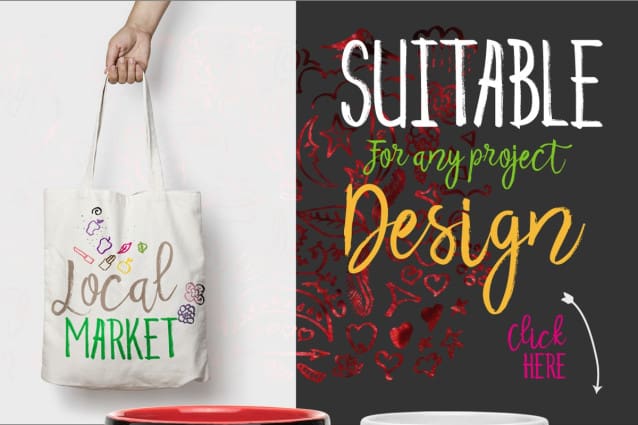
Beauty Heart Typeface
Beauty Heart Typeface, This is Handrawn Brush font, made with handmade, doodles included with natural brushes handmade and modern vintage style, BeautyHeart Script Brush Calligraphy style, Suitable for design, element design, wedding, event, t-shirt, logo, badges, sticker, and awesome work, etc…